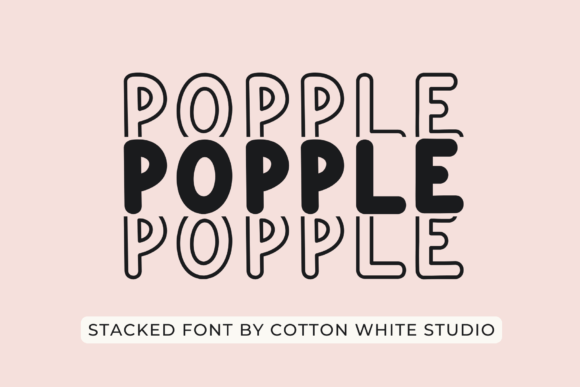
Introducing Popple Font, the ultimate choice for captivating headlines, titles, and short bursts of text! Created by Lemon Downloads, this remarkable display font is specifically designed to make your words pop and leave a lasting impression on your readers.
Popple Font is the perfect companion for anyone looking to create eye-catching content, especially for kids' books. Its playful and cheerful nature instantly captures the imagination, making it the best font choice to engage young readers and bring your stories to life. With Popple Font, you can effortlessly transport children to magical worlds filled with adventure and wonder.
Stand out from the crowd with Popple Font's bold and attention-grabbing appearance. Its unique and creative letterforms are unlike anything you've seen before, setting it apart from more traditional text fonts. Each character is carefully crafted to exude personality and charm, ensuring that your message resonates with your audience on a deeper level.
Not only does Popple Font make your text visually appealing, but it also evokes emotions and sparks curiosity in your readers. The whimsical design ignites a sense of joy, excitement, and anticipation, making it impossible for anyone to resist turning the page. It's the secret ingredient that transforms ordinary stories into extraordinary adventures.
With its versatility, Popple Font is not limited to just kids' books. It's a versatile tool that can be utilized in various creative projects, such as posters, invitations, branding materials, and more. Let your imagination run wild as you explore the endless possibilities this font offers.
Don't settle for mundane and forgettable typography. Choose Popple Font and infuse your words with personality, vibrancy, and a touch of magic. Whether you're a seasoned designer or a budding artist, this font will elevate your creations to new heights.